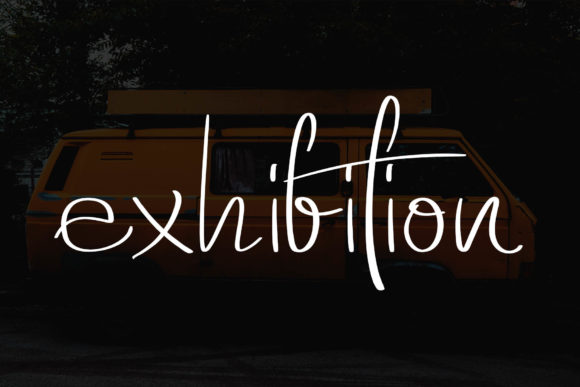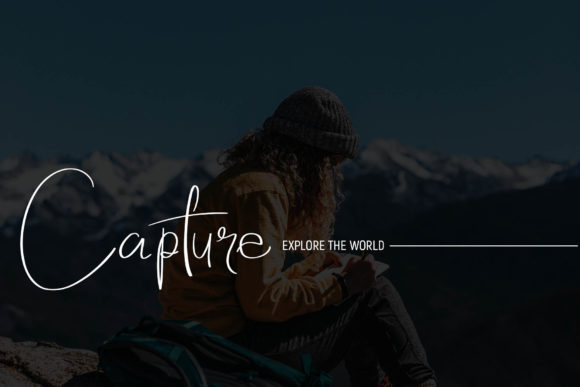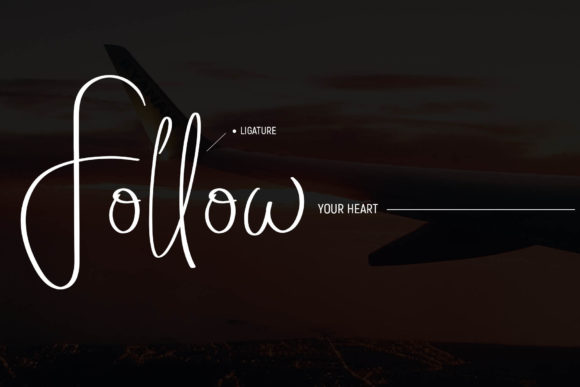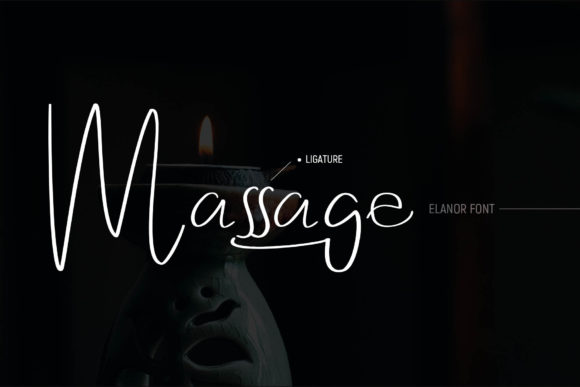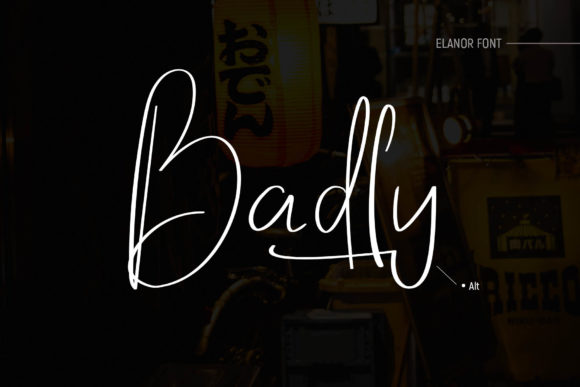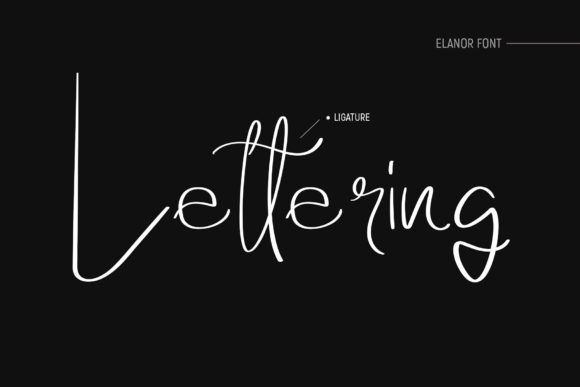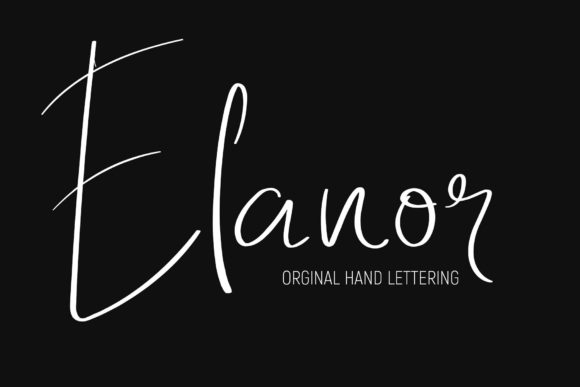
Introducing the Elanor Font: A Unique Handwritten Style for Your Designs
The Elanor font is a one-of-a-kind, original handwritten font that is sure to elevate your designs to the next level. With its distinctive and authentic style, it’s perfect for a variety of creative projects, from lettering designs and banners to retro posters and more.
What Makes the Elanor Font So Special?
The Elanor font boasts a unique and charming handwritten style that is both elegant and playful. Its distinctive characteristics make it an excellent choice for designers and crafters looking to add a personal touch to their work. Whether you’re creating a logo, a poster, or a social media graphic, the Elanor font is sure to make your design stand out.
Perfect for Lettering Designs and More
The Elanor font is ideal for lettering designs, offering a level of authenticity and personality that is hard to replicate with standard fonts. Its flowing lines and cursive style make it perfect for creating beautiful, hand-crafted letters and words that will capture the attention of your audience.
In addition to lettering designs, the Elanor font is also well-suited for a variety of other creative projects, including:
• Banners: Add a touch of elegance and sophistication to your banners with the Elanor font.
• Retro Posters: The Elanor font’s vintage-inspired style makes it a great choice for creating retro-style posters that will grab attention.
• Social Media Graphics: Use the Elanor font to add a personal touch to your social media graphics and make them stand out in a crowded feed.
• Logos: The Elanor font’s unique style makes it an excellent choice for creating logos that are both memorable and authentic.
Key Features of the Elanor Font
The Elanor font offers a range of features that make it an excellent choice for designers and crafters, including:
• Original Handwritten Style: The Elanor font is a unique, handwritten font that offers a level of authenticity and personality.
• Easy to Read: Despite its handwritten style, the Elanor font is easy to read, making it perfect for use in a variety of creative projects.
• Versatile: The Elanor font can be used in a range of creative projects, from lettering designs and banners to retro posters and more.
• High-Quality: The Elanor font is a high-quality font that is designed to deliver exceptional results.
Tips for Using the Elanor Font
To get the most out of the Elanor font, here are a few tips to keep in mind:
• Experiment with Different Sizes: The Elanor font looks great in a range of sizes, from small and delicate to large and bold.
• Pair with Other Fonts: The Elanor font pairs well with other fonts, making it easy to create interesting and dynamic text combinations.
• Use in Combination with Images: The Elanor font looks great when used in combination with images, making it perfect for creating graphics and posters.
Font Name Elanor Font
Author Gumacreative
The Elanor font is a unique and original handwritten font that is perfect for designers and crafters looking to add a personal touch to their work. With its distinctive style and versatile nature, it’s an excellent choice for a range of creative projects, from lettering designs and banners to retro posters and more. Whether you’re a professional designer or a crafter looking to add a touch of elegance to your work, the Elanor font is sure to deliver exceptional results.